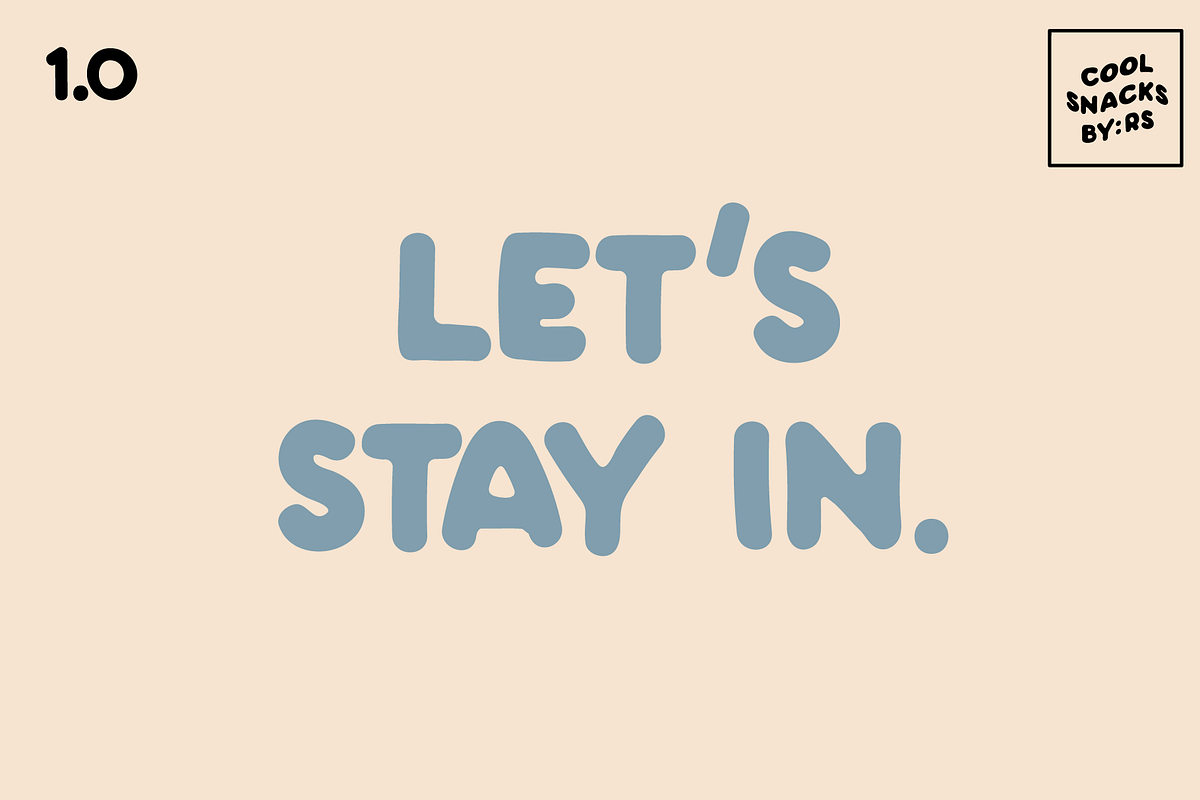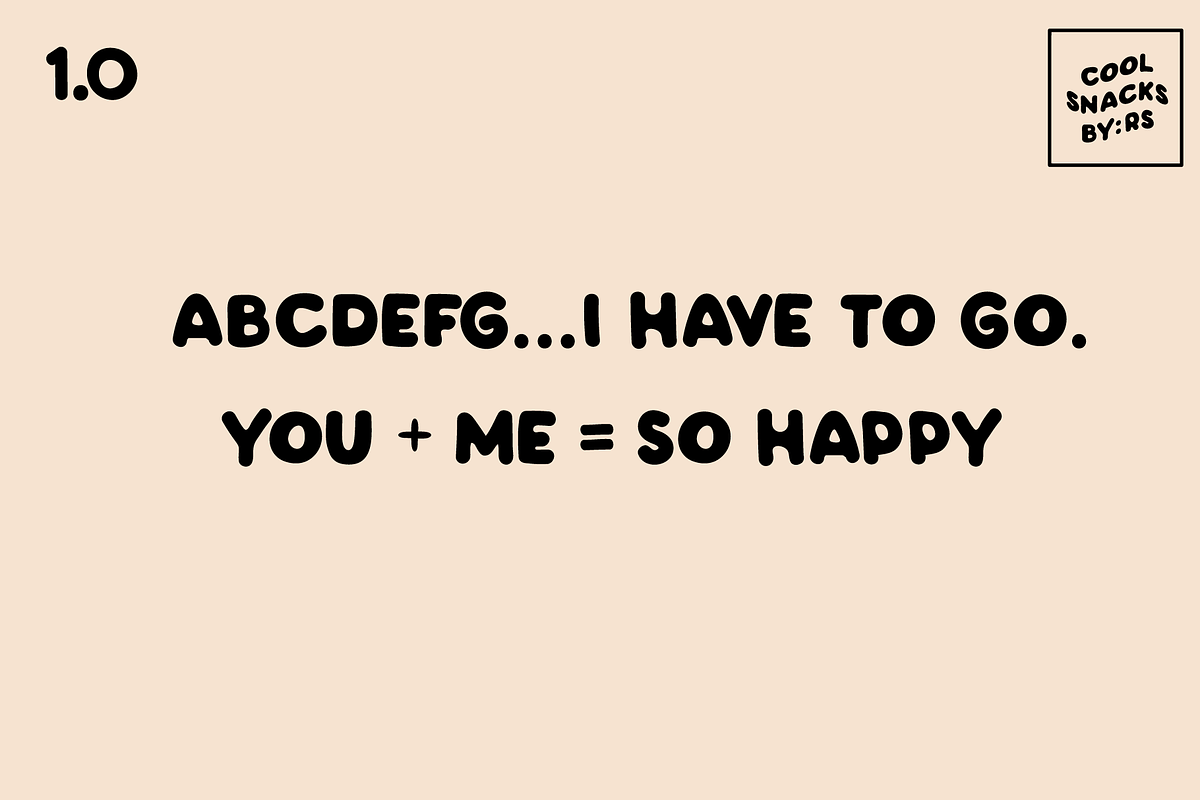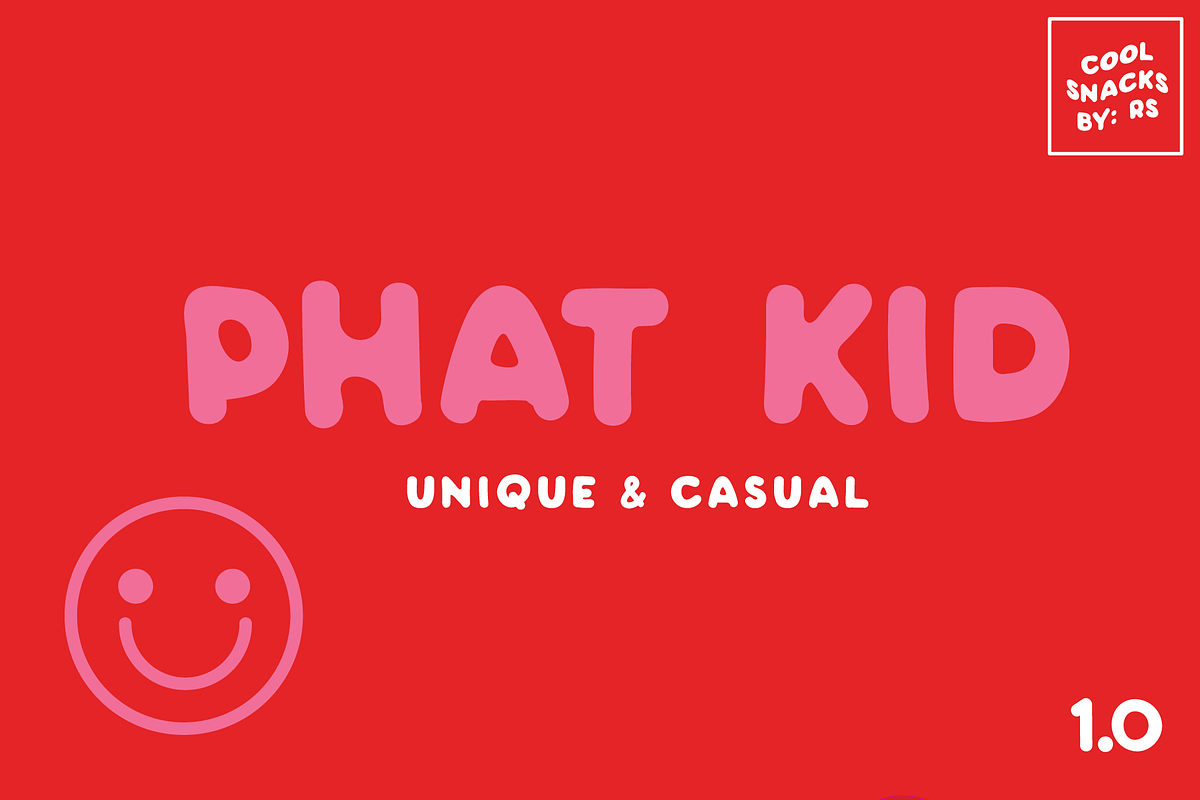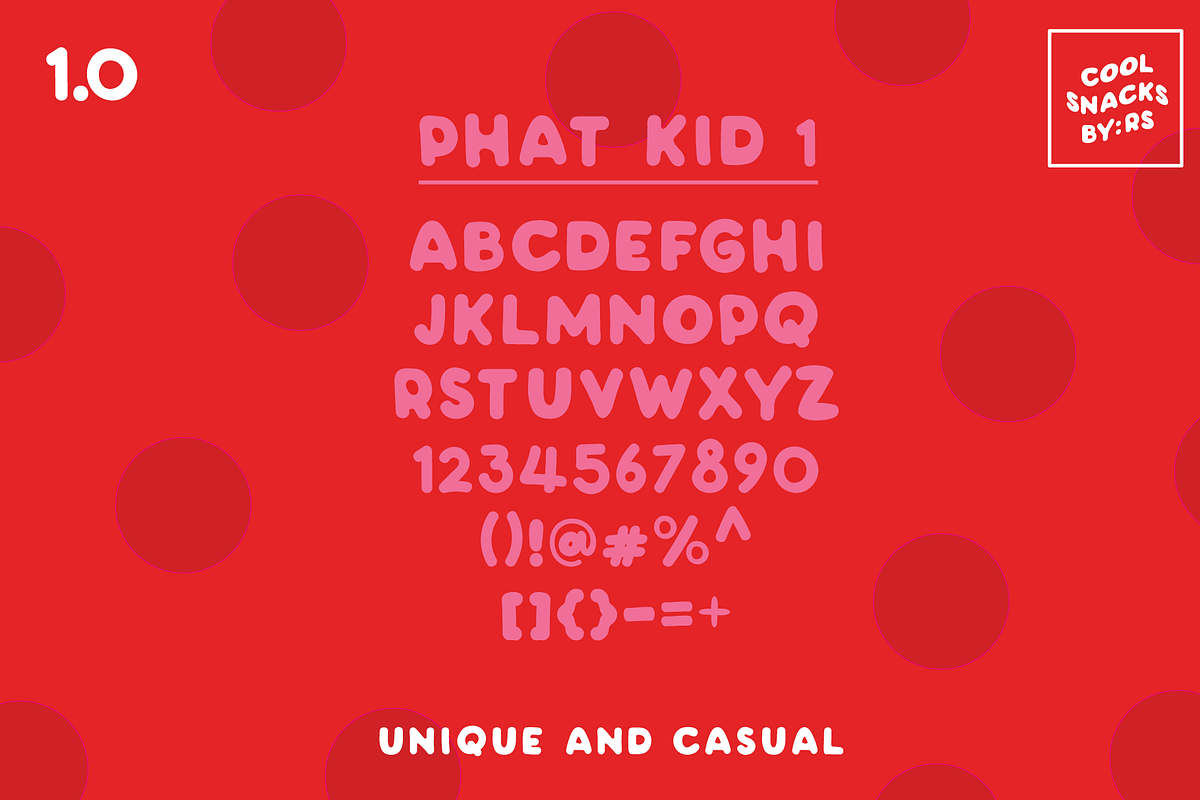
PHAT KID FONT
A casual hand-lettered font, All caps with punctuation. regular 1.0 font.
- A casual hand-lettered font, All caps with punctuation.
Why PHAT KID FONT is worth a look
PHAT KID FONT by COOL SNACKS fits naturally into Branding, posters, packaging, typography.